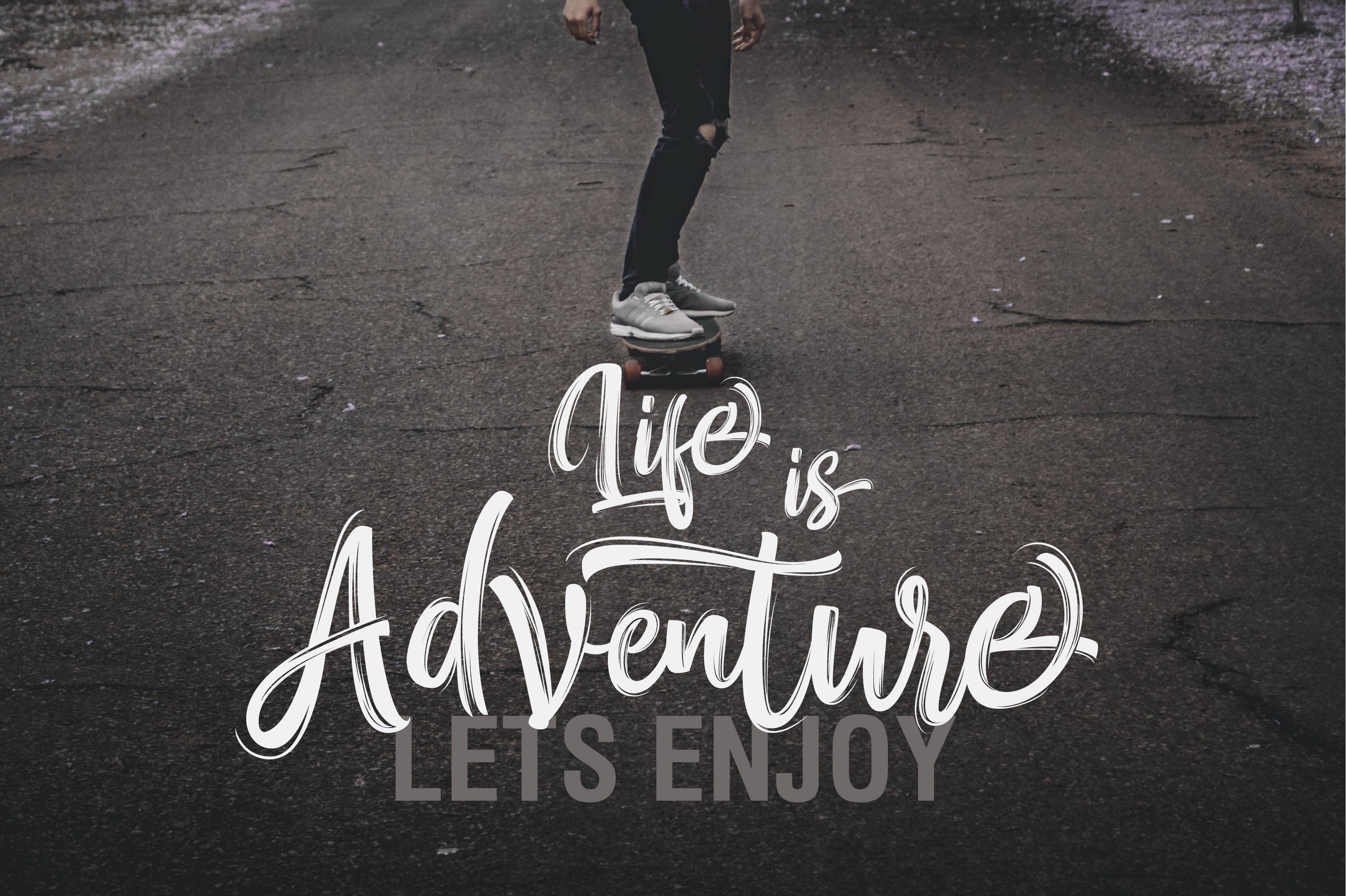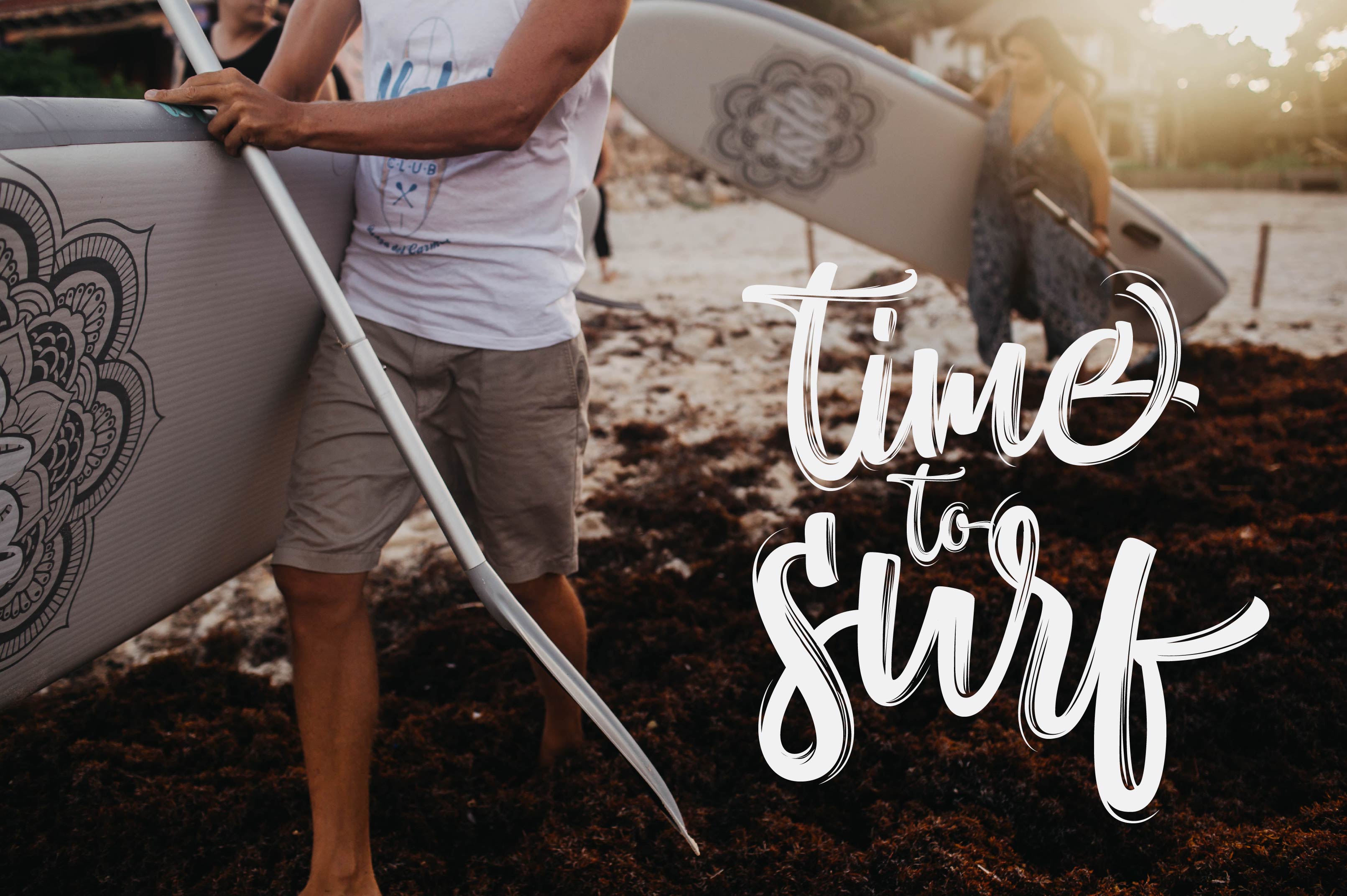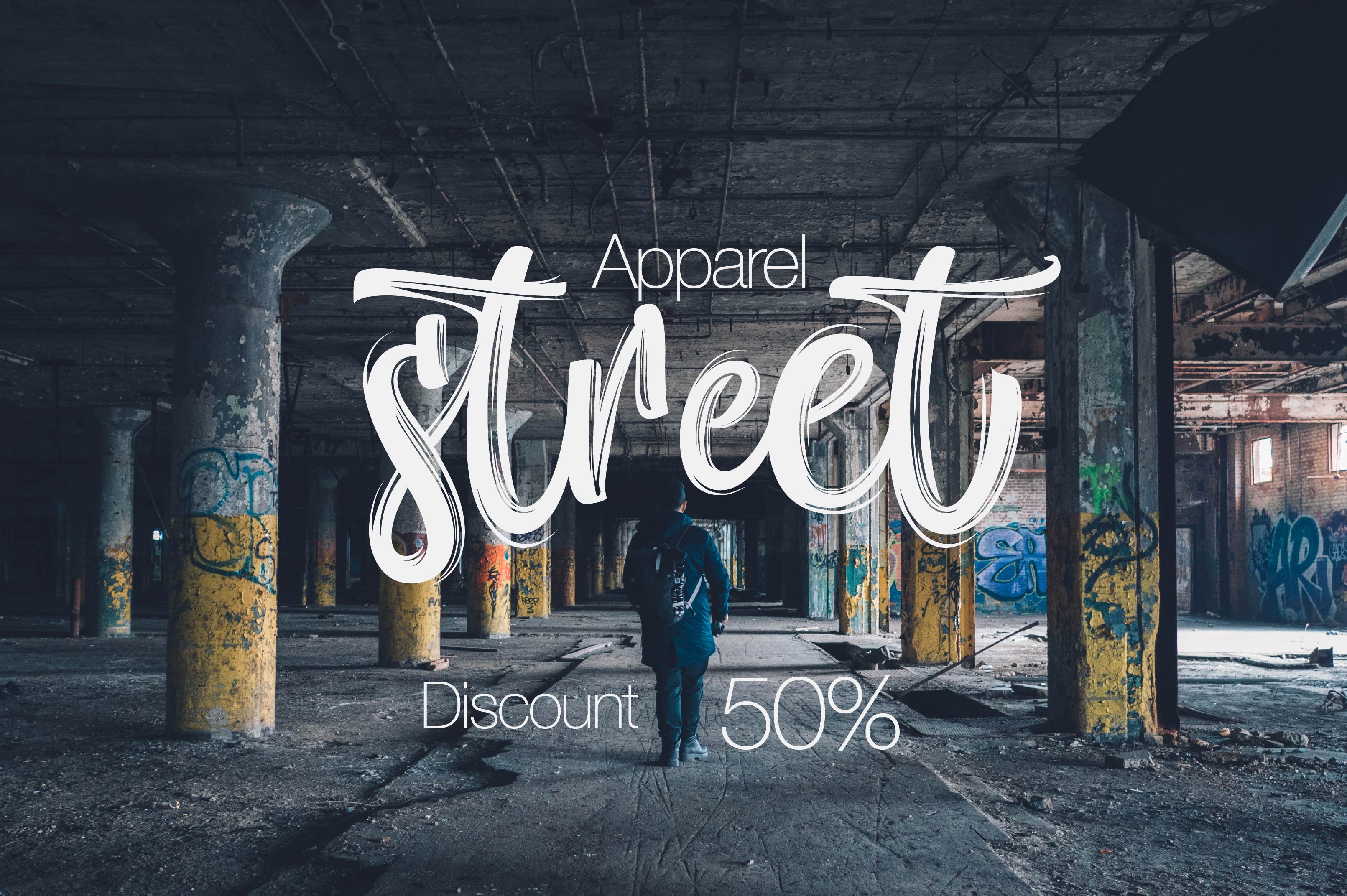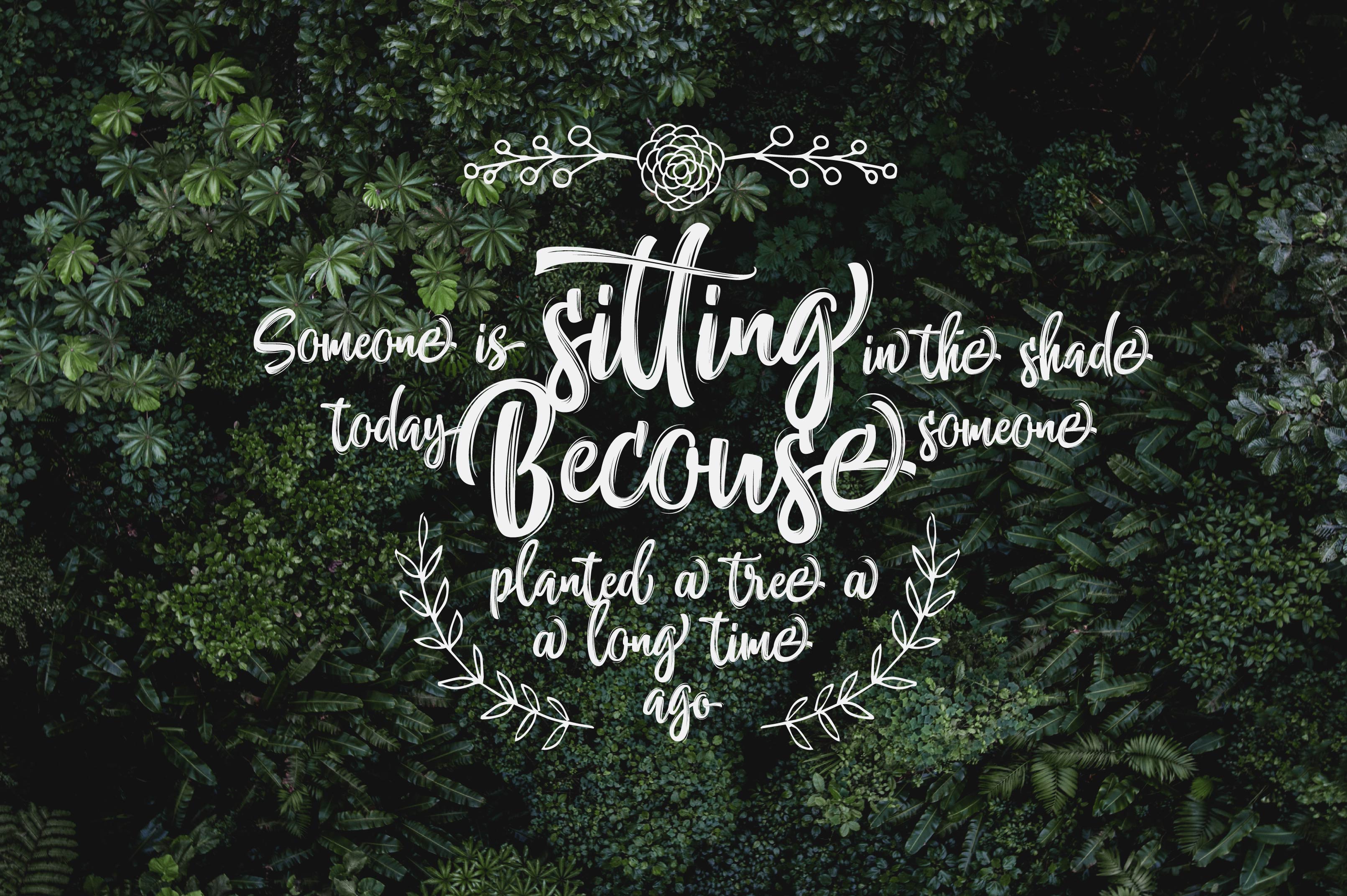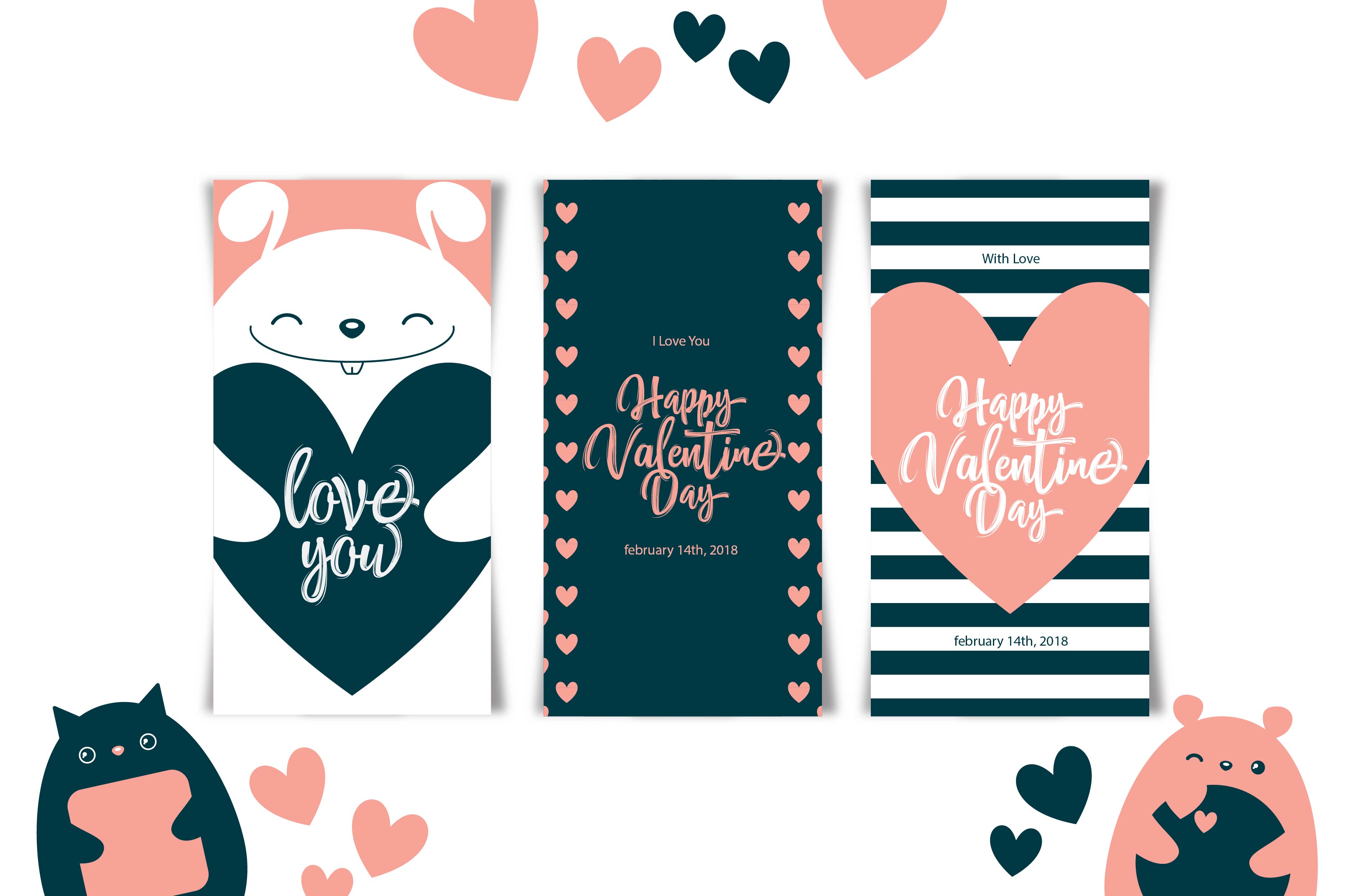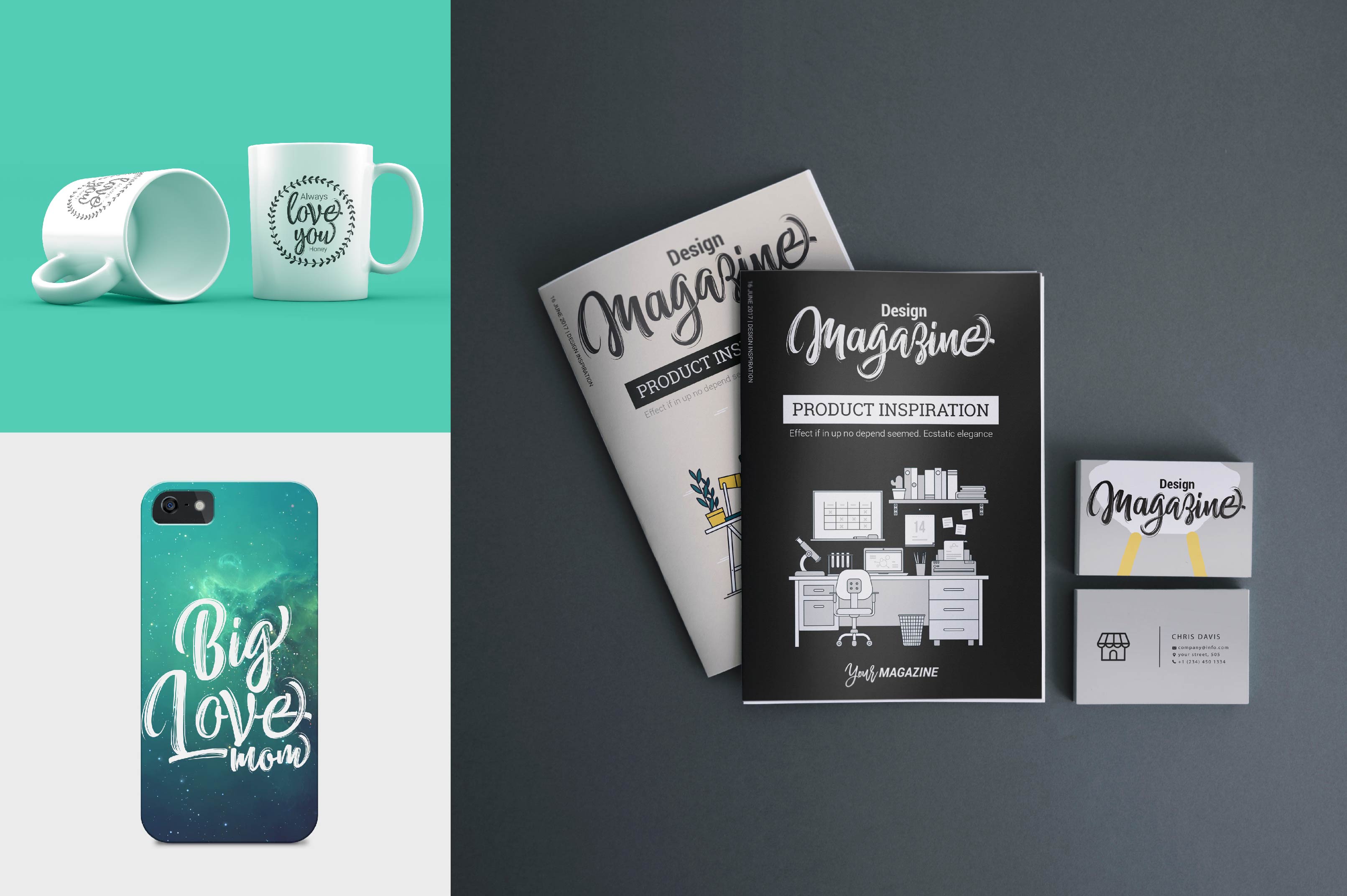
Introduction to Nettizen Font
Nettizen is a beautiful modern brush.
It will add a personal touch to your design in an instant .
Key Features of Nettizen Font
Why Choose Nettizen Font?
Nettizen Font offers exceptional quality and versatility, making it a valuable addition to your design toolkit. Whether you’re creating for personal projects or commercial use, Nettizen Font delivers professional results.